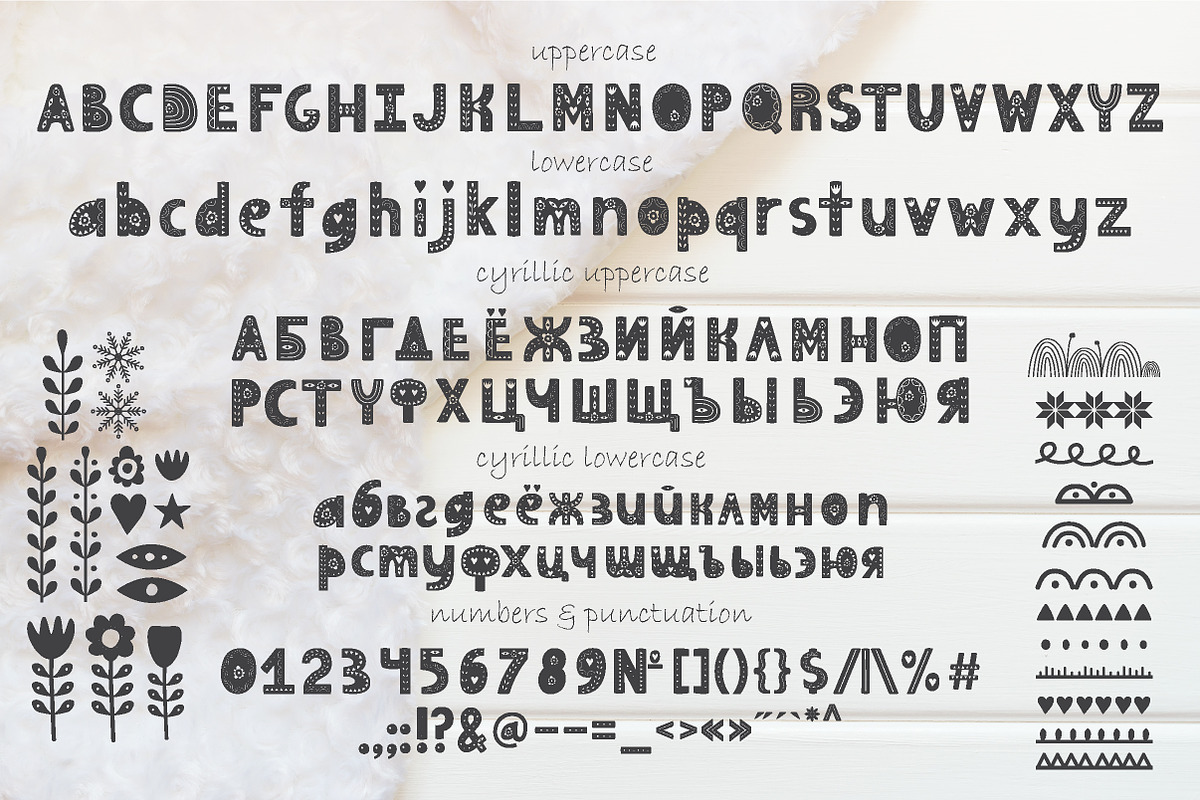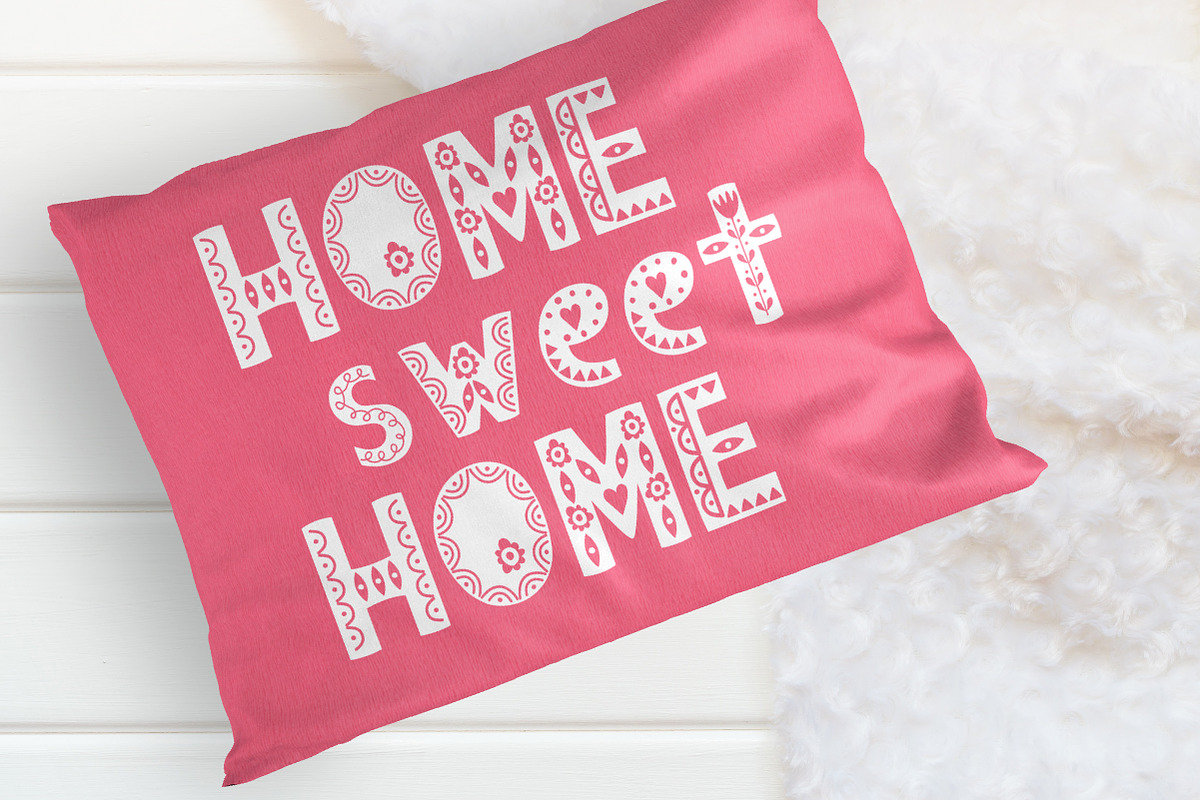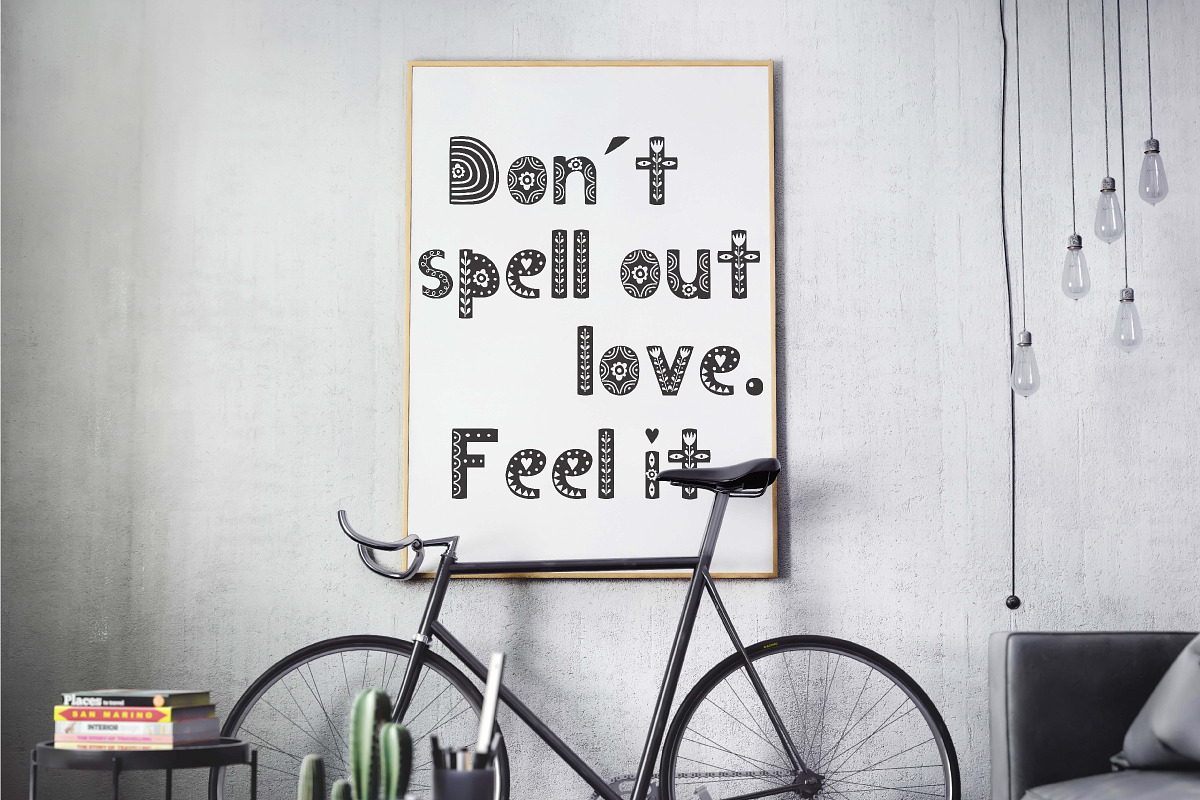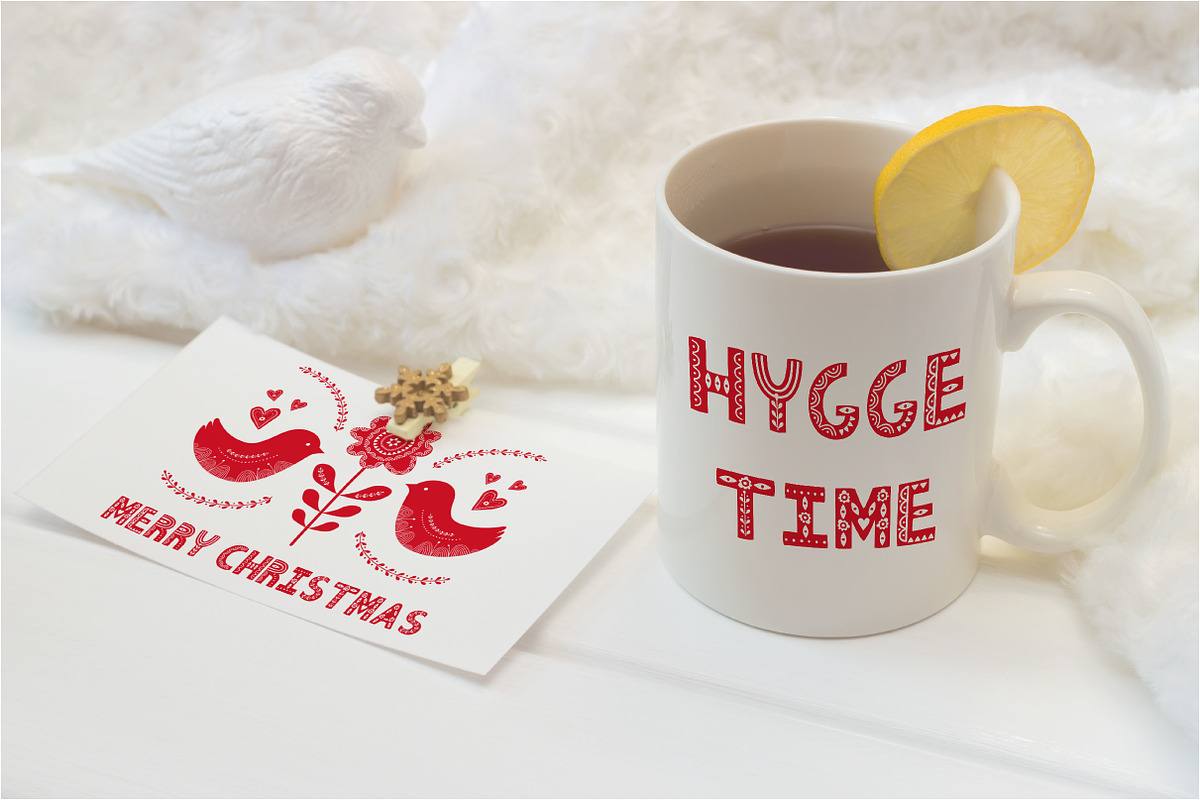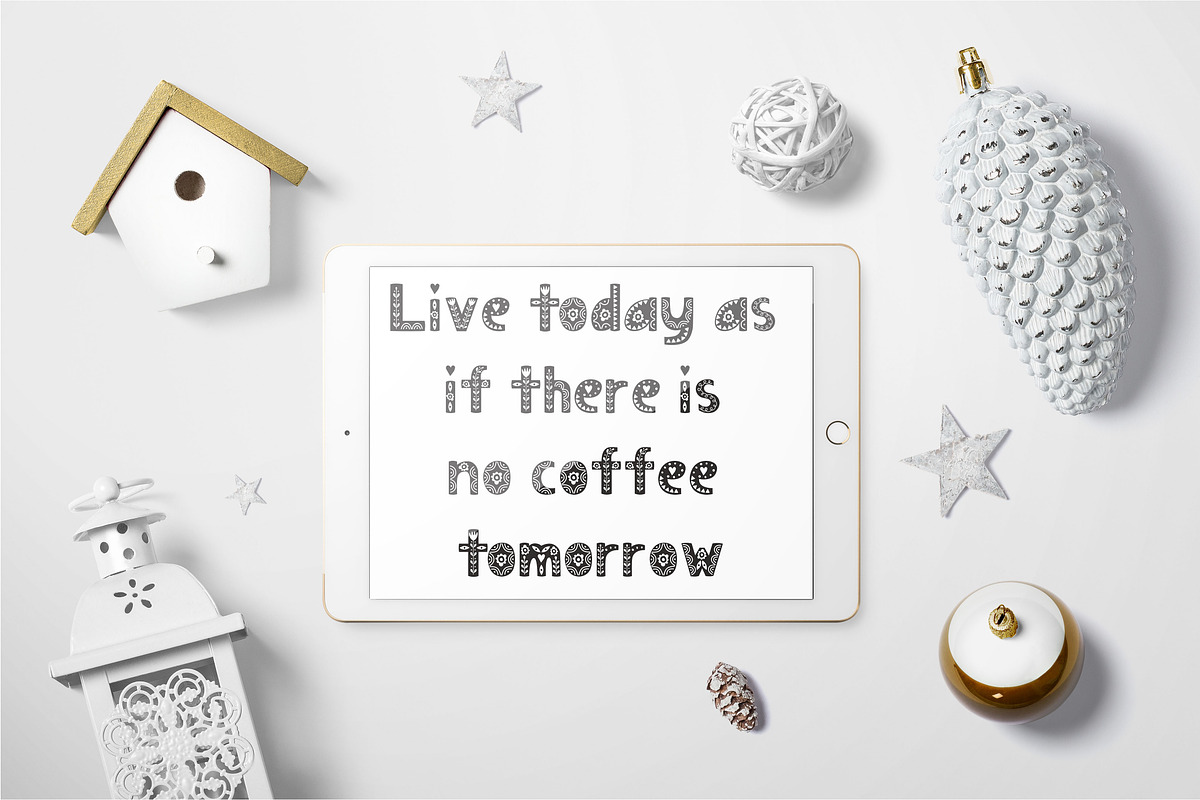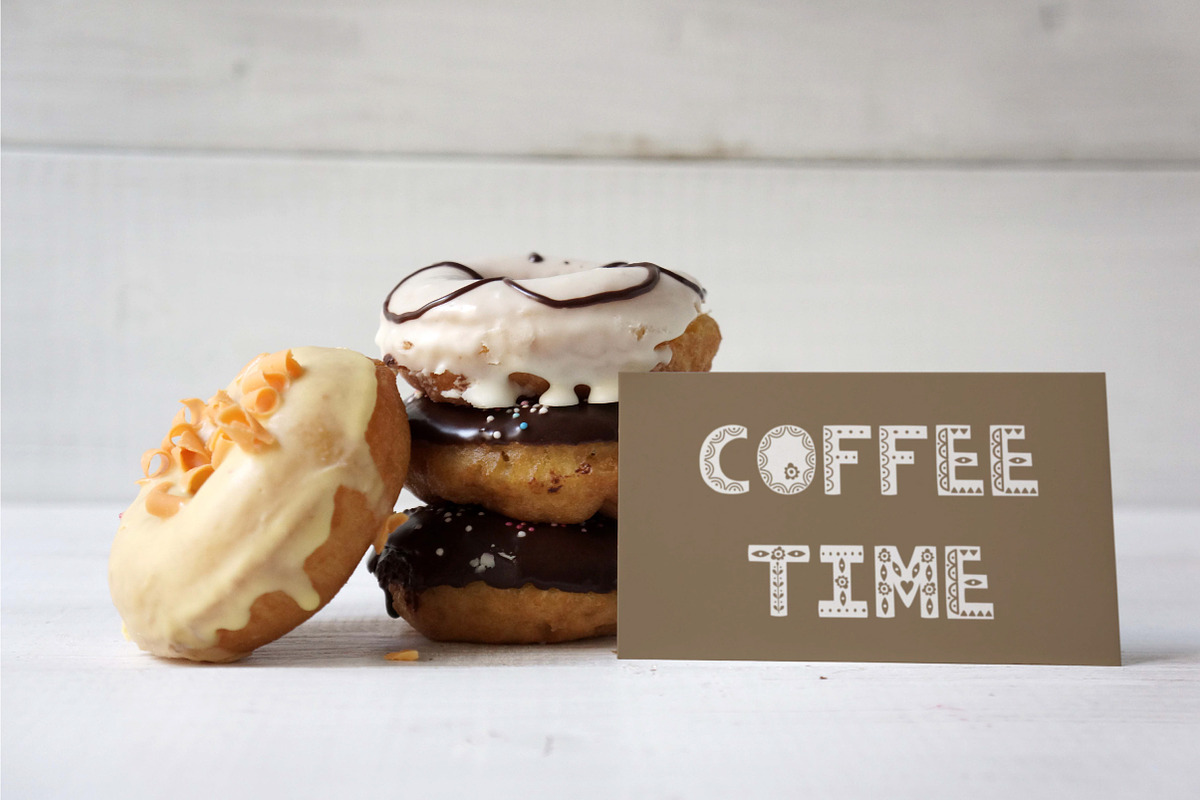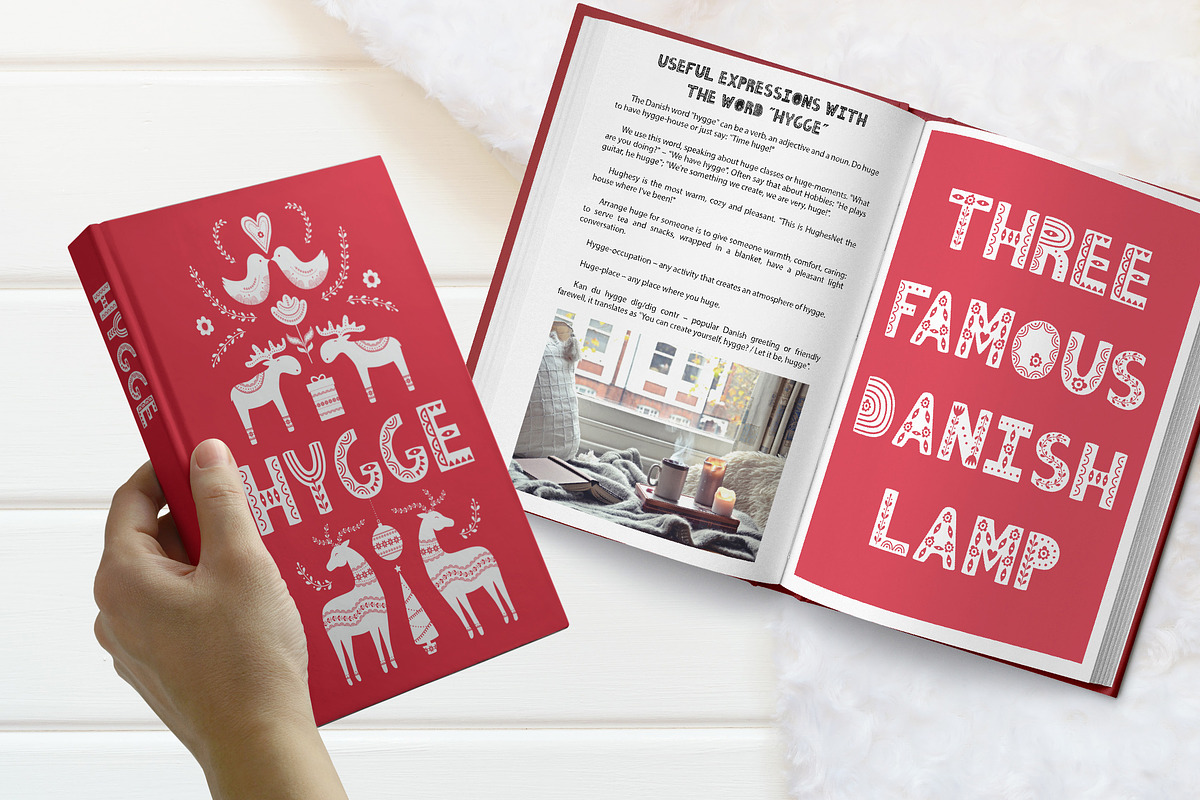
Hygge Scandinavian font
HYGGE - Scandinavian font. Font for your hygge projects!
This font is perfect for greeting cards, prints, invitations, crafting, logo, t-shirt design, quotes, illustration and decoration and so much more!. It has upper and lower case letters, numbers, special characters, accents.
Font includes multilingual support. Besides English & European languages it has cyrillic characters.
HYGGE has now been updated to support Serbian alphabet